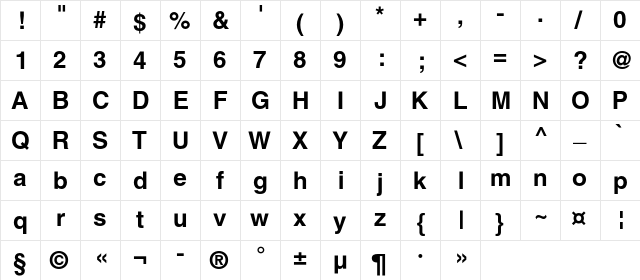
Helios Bold
Design Context for Helios Typeface
Helios takes a measured approach to typography — its balanced proportions and neutral character make it a reliable workhorse for both digital and print work. The heavy weight commands attention and anchors typographic hierarchies.
Pro Tip: Pair Helios with a font of contrasting weight or personality to build a more expressive typographic hierarchy.